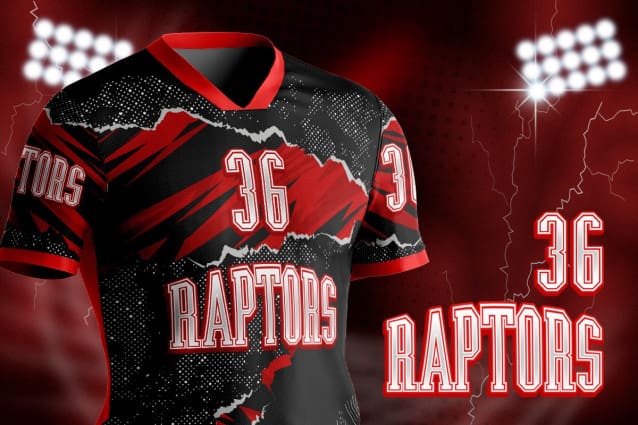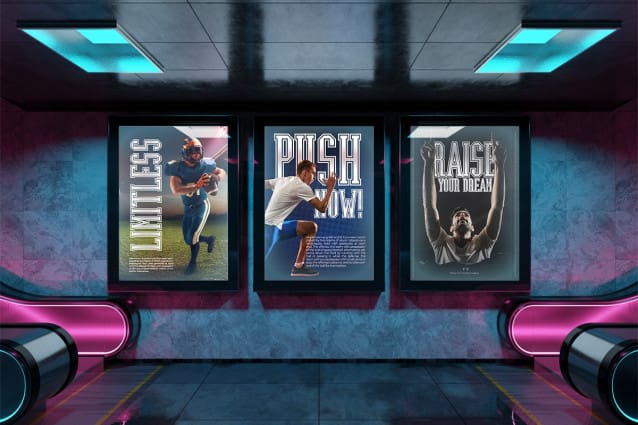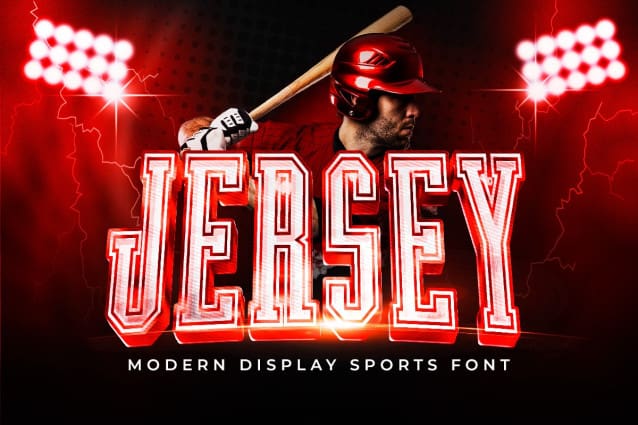
Jersey Font
Jersey Font – Modern Sport Font is a typeface that shows a modern and sporty impression. Easy to read and distinguishable, this font can serve many uses depending on the user. In both large and small text, this font is legible and reaches out. Jersey Font – Modern Sport Font is a modern and stylish font. This font was created to add a variety of sports fonts for many uses.
Jersey Font – Modern Sport Font can be used for production digitally and in promotions on the web and social media, as well as in printed forms such as magazines and posters. One of the products that can be combined with this font is sports products such as t-shirts, bags, hats, and logos. Jersey Font – Modern Sport Font can use on the sports magazine cover. This font can use as a brand on product packaging and can be applied as a match event font in the posters, costumes, tickets, and merchandise.
In modern business needs, Jersey Font – Modern Sport Font is also suitable for business signage that denotes a place, such as a stadium or other sports venue. Jersey Font – Modern Sport Font is one of the best fonts to use for fonts.